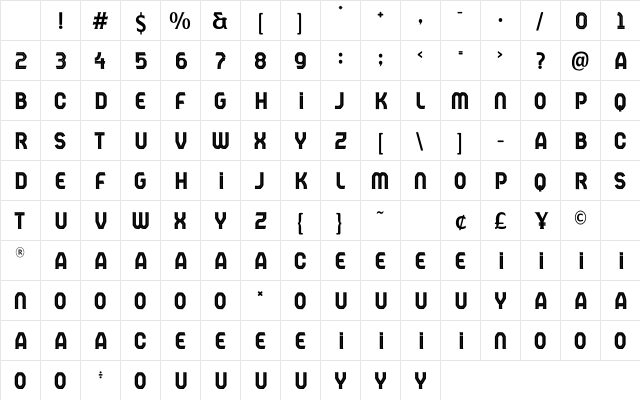
Complete Catalunya Sans Inline Alt Regular glyph index. Displaying only characters natively supported by Catalunya Sans Inline Alt Regular font.
Catalunya Sans Inline Alt is built around its visual character rather than neutral utility - its distinctive forms are designed to make an impression at display sizes.
Font Pairing: Pair with a clean neutral sans-serif for body copy to let Catalunya Sans Inline Alt's character lead without overwhelming the composition.
Pro Tip: Use Catalunya Sans Inline Alt exclusively at display sizes - it was designed to be seen, not read at length. Let a neutral companion handle body copy.